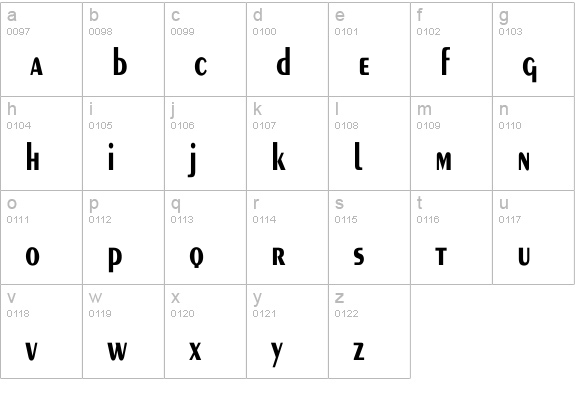
Exotic-Bold Cn is a strong, high-contrast variant in the Exotic typeface family \xE2\x80\x94 well suited to headlines, attention-grabbing titles, and strong calls-to-action.
Exotic-Bold Cn font is a captivating and eye-catching typeface that exudes a sense of exotic charm and boldness. Its unique design features intricate curves and striking lines, making it perfect for adding a touch of sophistication to any project. This font is ideal for creating attention-grabbing headlines, posters, and branding materials. The best part about Exotic-Bold Cn font is that it is completely free to download at FontsMarket.com. Whether you're a designer looking to enhance your creative projects or just someone who appreciates beautiful typography, this font is a must-have addition to your collection. Download it today and unleash the exotic boldness in your designs!